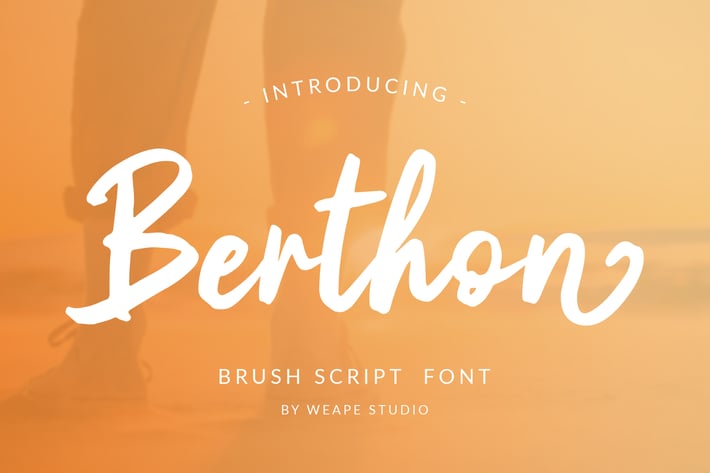
Berthon - Brush Script Font
Introducing Berthon - Brush Script Font, script with a natural rough dry brush strokes, and the stroke of hand quickly.
And this font perfect for signature, branding, wedding, fashion, photography, title, poster, social media, ad banner, book cover, packaging, handwritten quotes, greeting cards and advertising. You can create more easily with alternatives to each letter and make it as if you wrote it yourself.